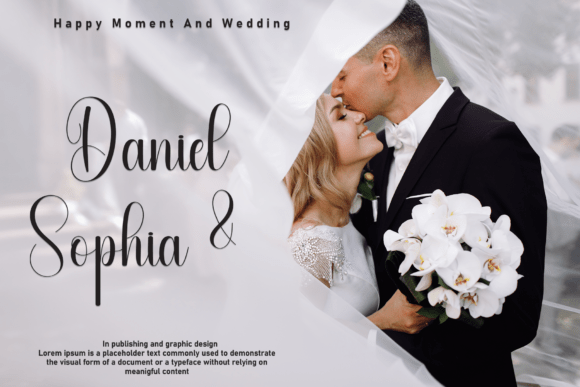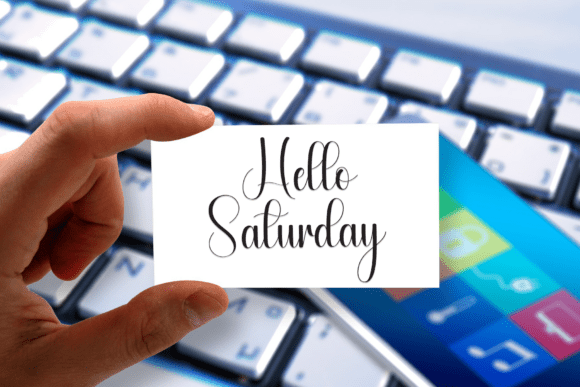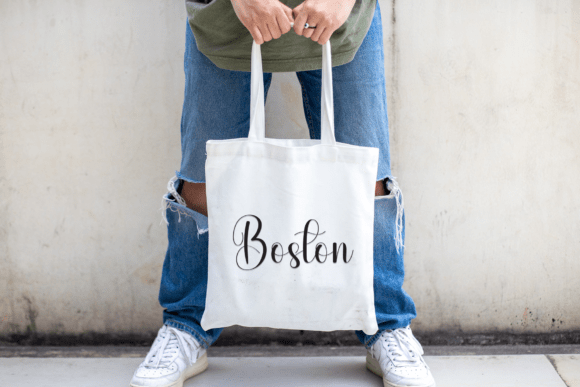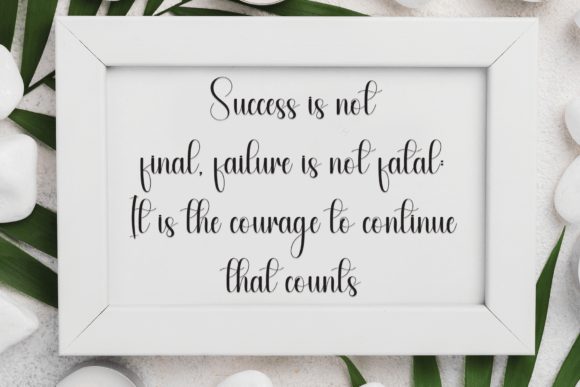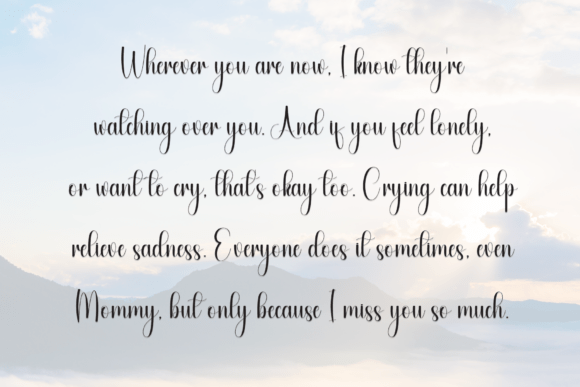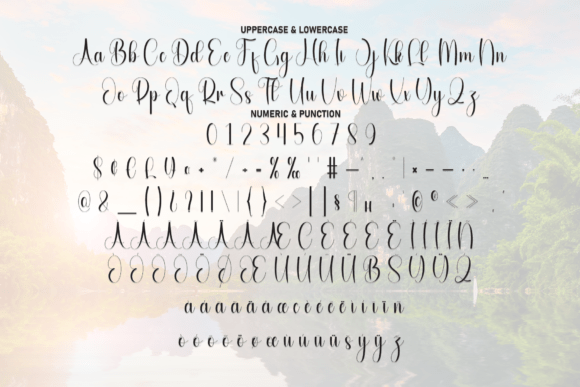
Introducing Disney Font: A Whimsical Typeface to Delight Your Audience
Are you looking for a font that can add a touch of magic to your creative projects? Look no further than the Disney Font, a captivating handwritten display typeface that effortlessly marries charm and warmth. This delightful font is perfectly crafted to charm your audience, making it ideal for wedding invitations, heartfelt messages, and a wide range of creative projects.
A Font that Radiates Delight and Playfulness
The Disney Font is a whimsical typeface that radiates delight and playfulness, setting your projects apart from the mundane and dull. Its joyful splash of creativity is sure to ignite a playful, imaginative flare in your audience. Whether you’re a designer, crafter, or DIY enthusiast, this font is sure to become your go-to instrument for infusing your projects with a touch of magic.
Perfect for Wedding Invitations and Heartfelt Messages
The Disney Font is particularly well-suited for wedding invitations and heartfelt messages. Its charming and warm personality makes it perfect for conveying love, joy, and celebration. With this font, you can create beautiful and unique wedding invitations that will set the tone for a memorable and special day. Additionally, you can use it to create heartfelt messages that will touch the hearts of your loved ones.
A Versatile Font for Creative Projects
The Disney Font is not just limited to wedding invitations and heartfelt messages. Its versatility makes it suitable for a wide range of creative projects, including:
- DIY crafts and decorations
- Marketing materials and advertisements
- Stationery and greeting cards
Key Features of the Disney Font
The Disney Font has several key features that make it a standout typeface:
- Handwritten display typeface: The Disney Font is a handwritten display typeface that has a personal and intimate feel.
- Charming and warm personality: The font has a charming and warm personality that makes it perfect for conveying love, joy, and celebration.
- Whimsical and playful: The Disney Font is a whimsical and playful typeface that radiates delight and playfulness.
- Highly versatile: The font is highly versatile and can be used for a wide range of creative projects.
Tips for Using the Disney Font
Here are some tips for using the Disney Font in your creative projects:
- Use it for headings and titles: The Disney Font is perfect for headings and titles, where you want to make a bold and eye-catching statement.
- Pair it with other fonts: You can pair the Disney Font with other fonts to create a unique and interesting contrast.
- Experiment with different colors: The Disney Font looks great in a variety of colors, so don’t be afraid to experiment and find the perfect color for your project.
- Use it to add a personal touch: The Disney Font is a great way to add a personal touch to your projects, making them more special and meaningful.
In conclusion, the Disney Font is a captivating handwritten display typeface that effortlessly marries charm and warmth. Its whimsical and playful personality makes it perfect for wedding invitations, heartfelt messages, and a wide range of creative projects. With its highly versatile nature and key features, this font is sure to become your go-to instrument for infusing your projects with a joyful splash of creativity. So why wait? Download the Disney Font today and start adding a touch of magic to your creative projects!